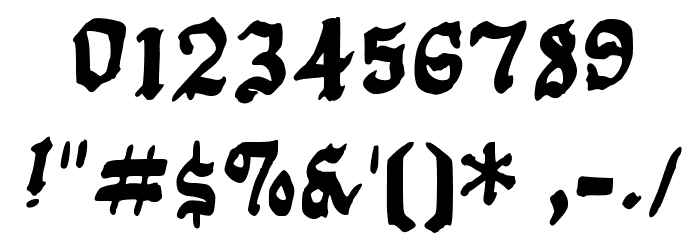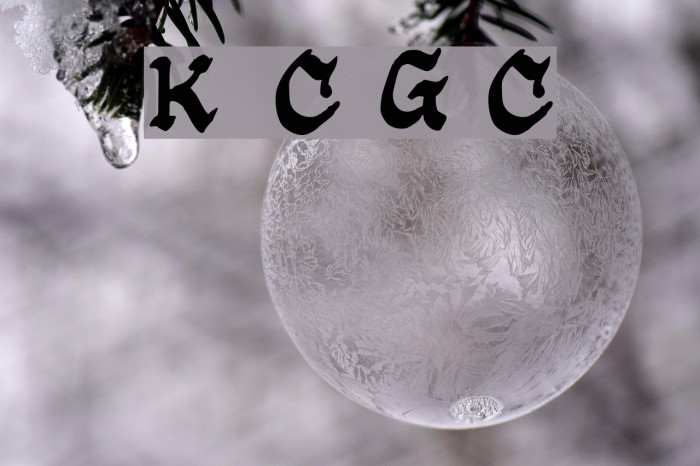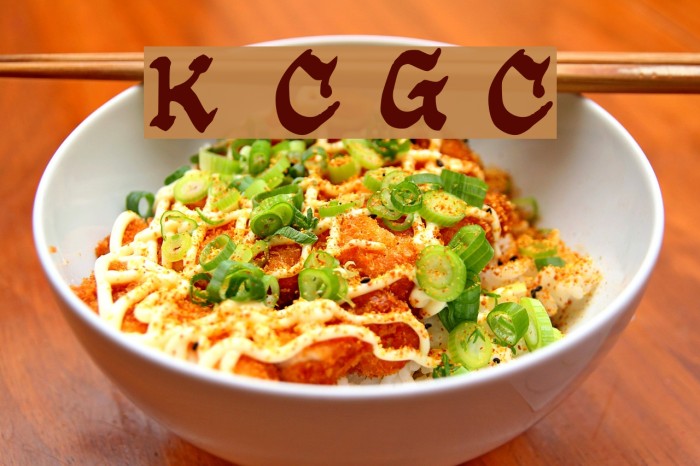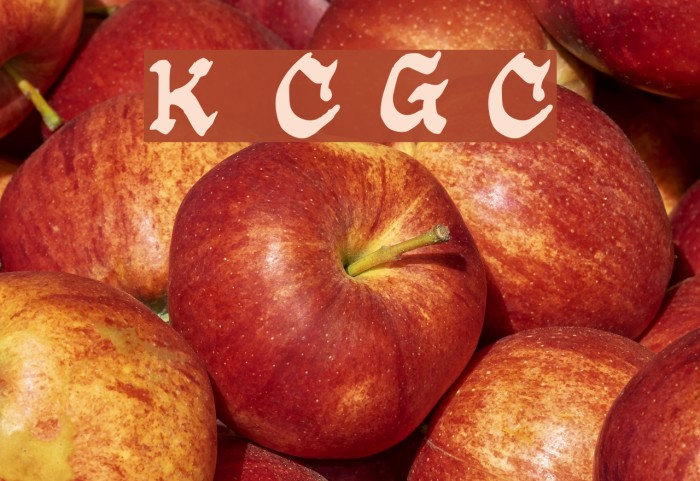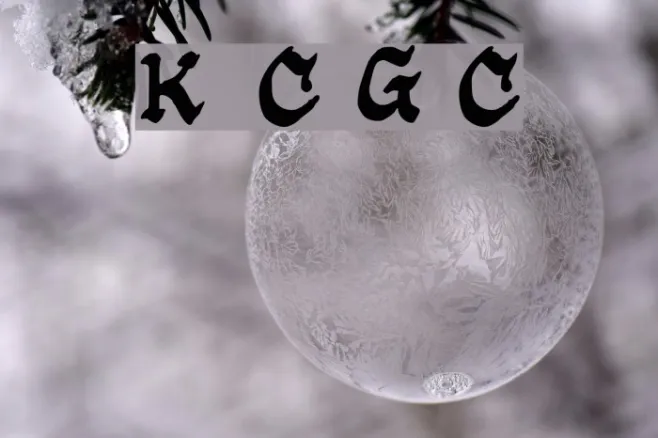
Kansas City Gothic Caps Font
This font exhibits a bold and striking Gothic style, characterized by its sharp, angular serifs and dramatic strokes. The uppercase letters are particularly ornate, with intricate detailing that gives them a medieval appearance. The numbers and special characters maintain this aesthetic, ensuring consistency across all glyphs. The overall design is reminiscent of traditional blackletter fonts, yet it incorporates a modern twist with its clean lines and balanced proportions. This font is perfect for projects that require a historical or vintage feel, while still maintaining readability.
A bold, Gothic-style font with sharp serifs and dramatic strokes.
- Proposed Projects: Ideal for use in branding, posters, book covers, and any design requiring a historical or vintage touch.
- Overall Style: Vintage